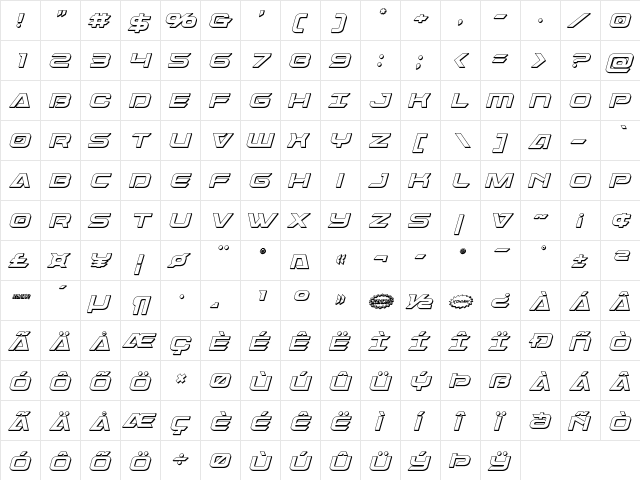
Dameron 3D Italic Italic
Design Context for Dameron 3D Italic Typeface
Dameron 3D Italic is a composed and adaptable typeface that performs quietly and consistently across a wide range of design contexts. The slanted form adds forward momentum and visual energy.
Pro Tip: Try Dameron 3D Italic for annotation and caption copy alongside an upright companion — the contrast in angle creates a dynamic but ordered typographic system.